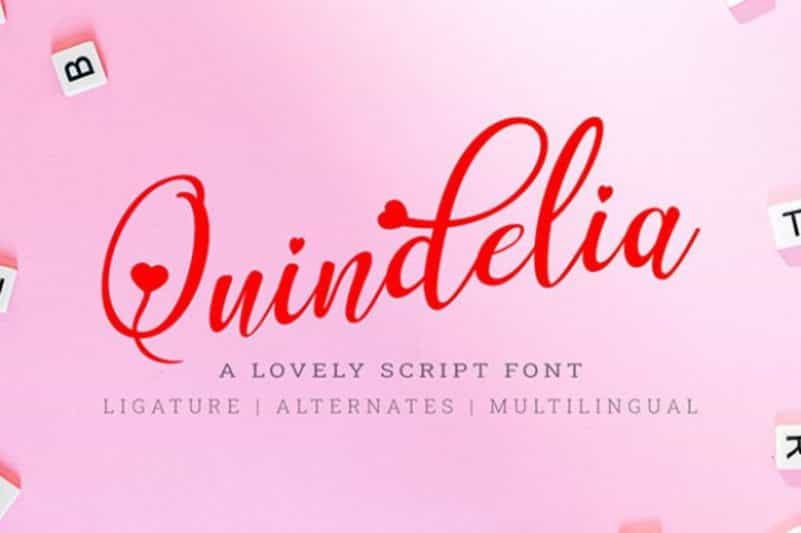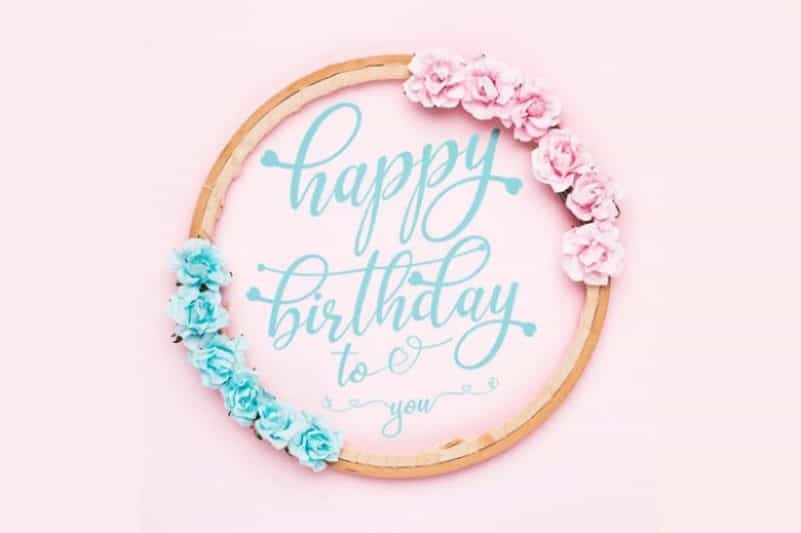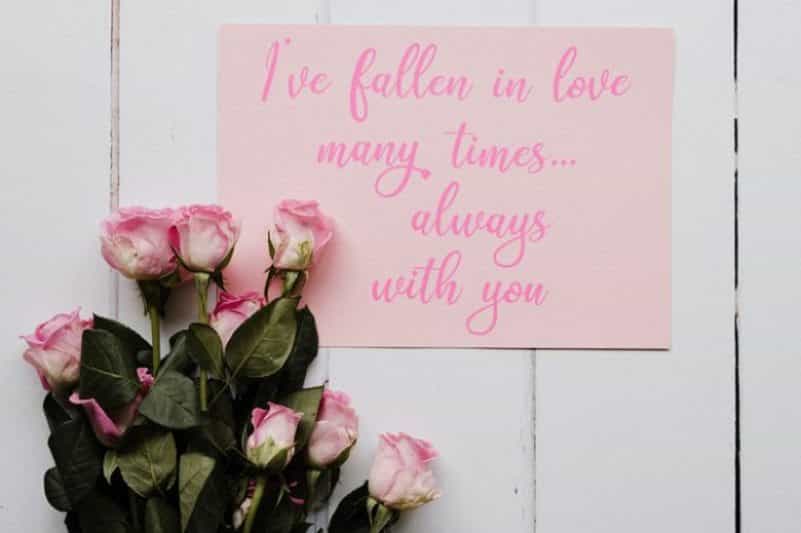
Discover Quindelia Calligraphy Font, part of the Calligraphy collection—a versatile and unique font perfect for adding a personal touch to your projects. Download it for free and enjoy crafting designs with style, from invitations to social media posts. This font is available exclusively for personal use, giving you the freedom to create without limits. Unlock your creativity with Quindelia Calligraphy Font today!
Quindelia is a pretty script font with so much love and tenderness in it, unrepeatable ligature, smooth and stylish stroke, there are six alternatives to it. Quindelia Font is a perfect choice for weddings, events, invitations, cards, quotes displays logotypes blog sliders address stamps packages greeting cards and many more.